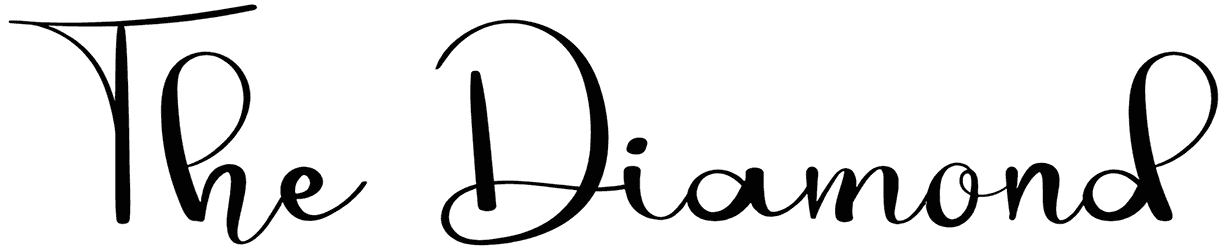
The Diamond Font
If you are looking for an awesome font with a luxury style, the Diamond font is an appropriate choice. This script font has an elegant design that seems stunning to the viewer.
The feminine font may be helpful for various cases, such as advertisements, invitation cards, and magazine covers. This handwritten font’s letters have soft, rounded edges, sending your audience a pleasant vibe. Moreover, its extended thin tails grab attention, so do not hesitate to download it.
The Diamond is a beautiful and refined script font. It has a classy, elegant and modern look that can be used for logos, branding, invitations, stationery, wedding designs, social media posts, and much more!